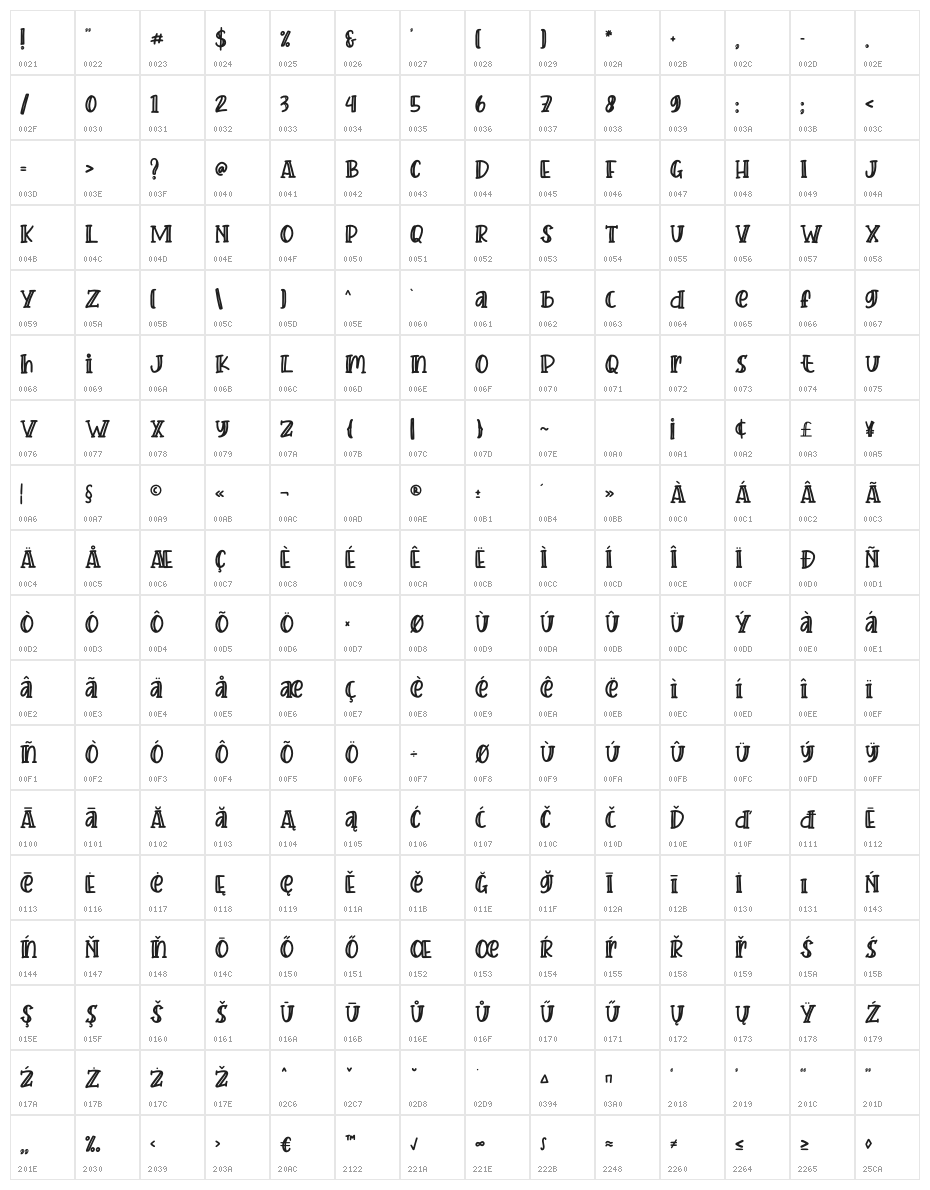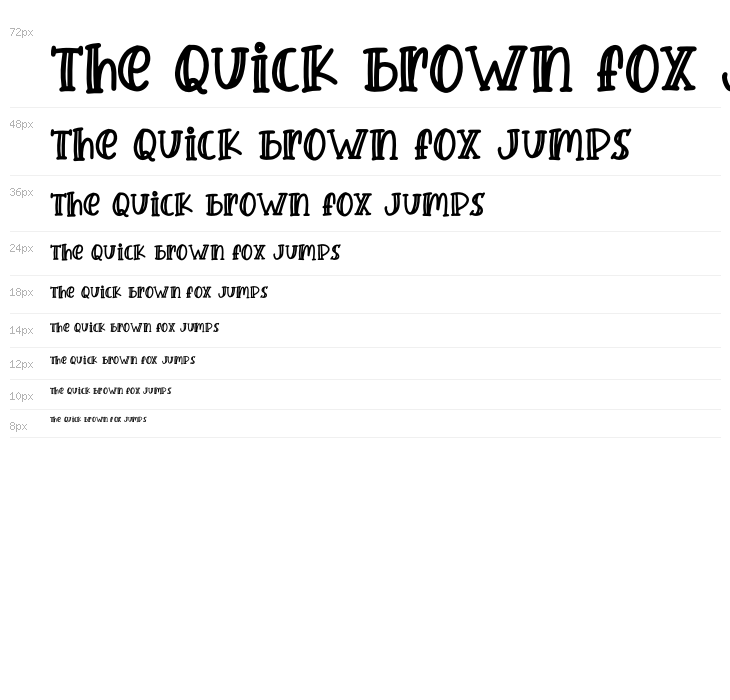
Crafter Font
Crafter Description
This font features a playful and artistic style with a hand-drawn appearance. The characters are bold and slightly irregular, giving them a whimsical and creative feel. The uppercase and lowercase letters maintain a consistent style, with rounded edges and a slight tilt that adds to the casual and friendly look. The numbers and special characters follow the same design principles, ensuring a cohesive appearance across all glyphs. This font is ideal for projects that require a touch of personality and creativity, such as crafts, DIY projects, or children's materials. Its unique style makes it stand out, while still being legible and versatile.
| Proposed Projects | Ideal for crafts, DIY projects, children's books, playful branding, and creative invitations. |